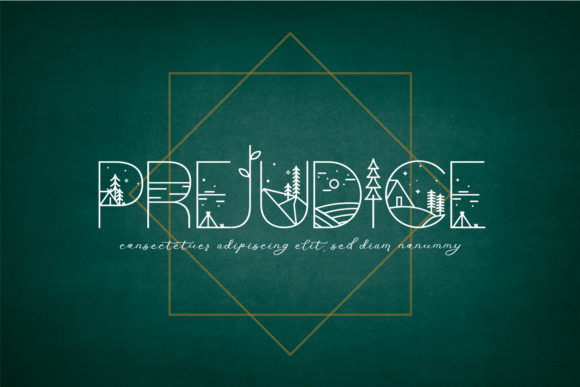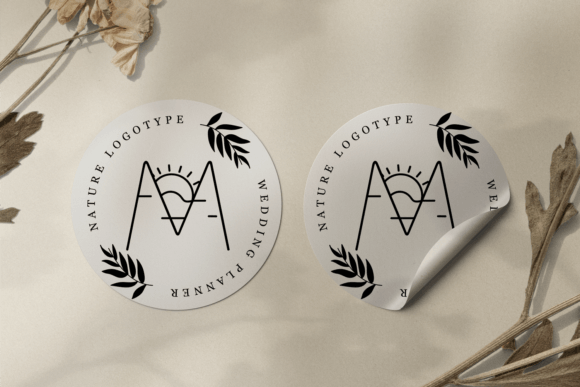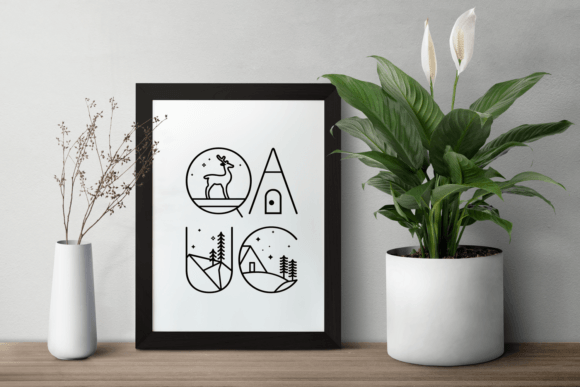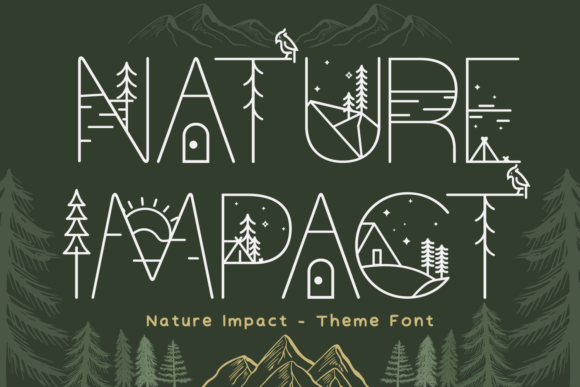
Introduction to Nature Impact Font
Nature Impact font is a thin line font in nature style, uppercase is decorated with geometric and natural elements.
Initials are ornamented with floral designs, flowers, plants, leaves, and many more This font will perfectly fit various label and logo designs.
Key Features of Nature Impact Font